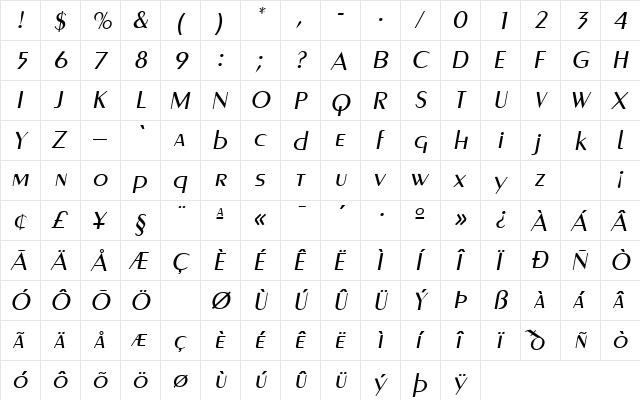
PenultimateLightItal Regular
Design Context for PenultimateLightItal Typeface
PenultimateLightItal offers clean, dependable letterforms without strong stylistic allegiance, making it a practical choice for designers who need flexibility. The delicate stroke weight brings airiness and refinement to layouts.